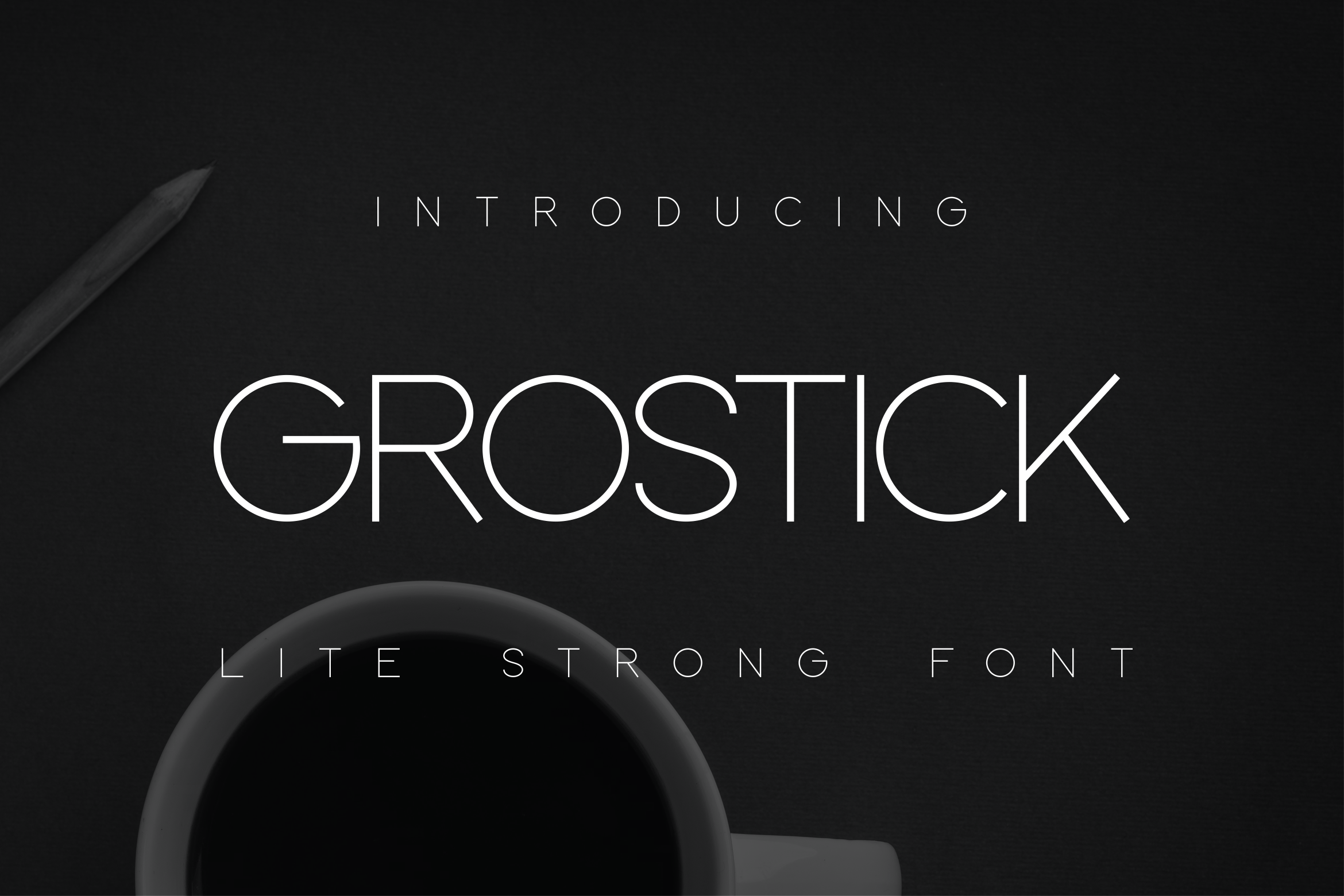
Grostick Lite multilingual Font
Fonts created specifically for use in many sentences. From its manufacture, this font underwent quite extreme forging. starting from choosing the thickness of the lines, the arrangement of the glyphs so that they have the right level of precision and geometrical precision. equipped with glyphs for several states that use additional spelling, making it possible to use on a wide scale. Magazine and Description are the main Topics in this Font.